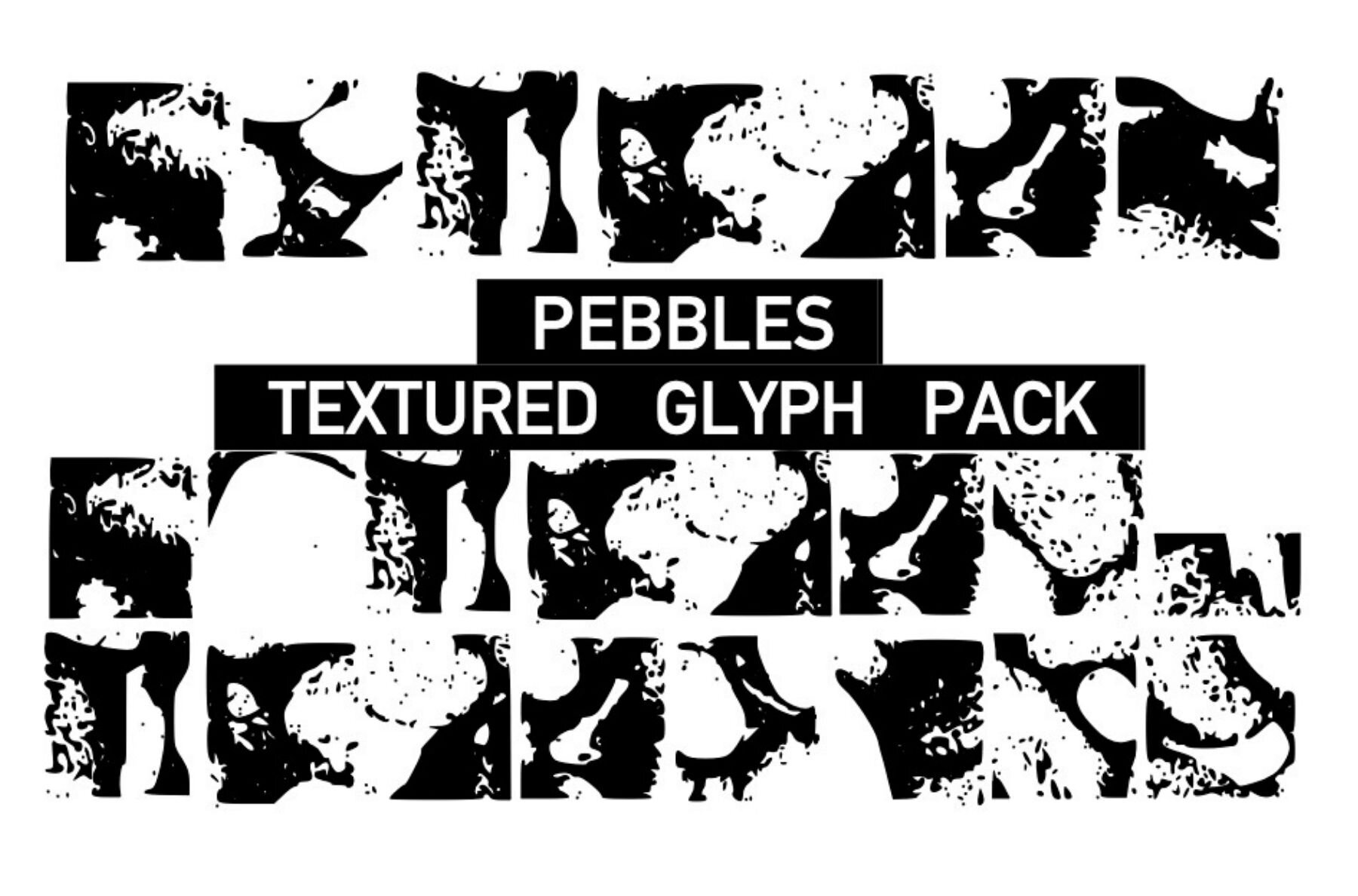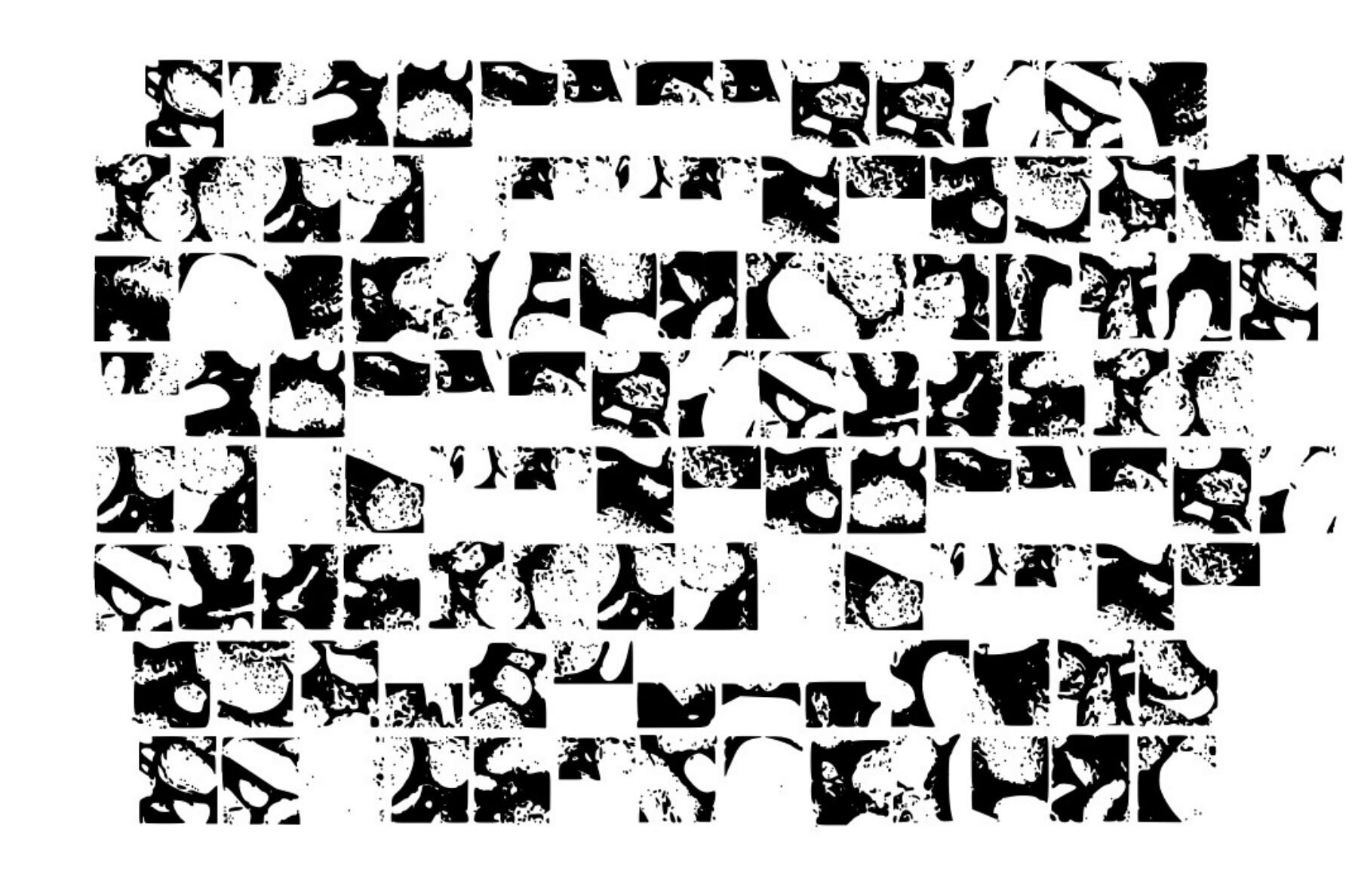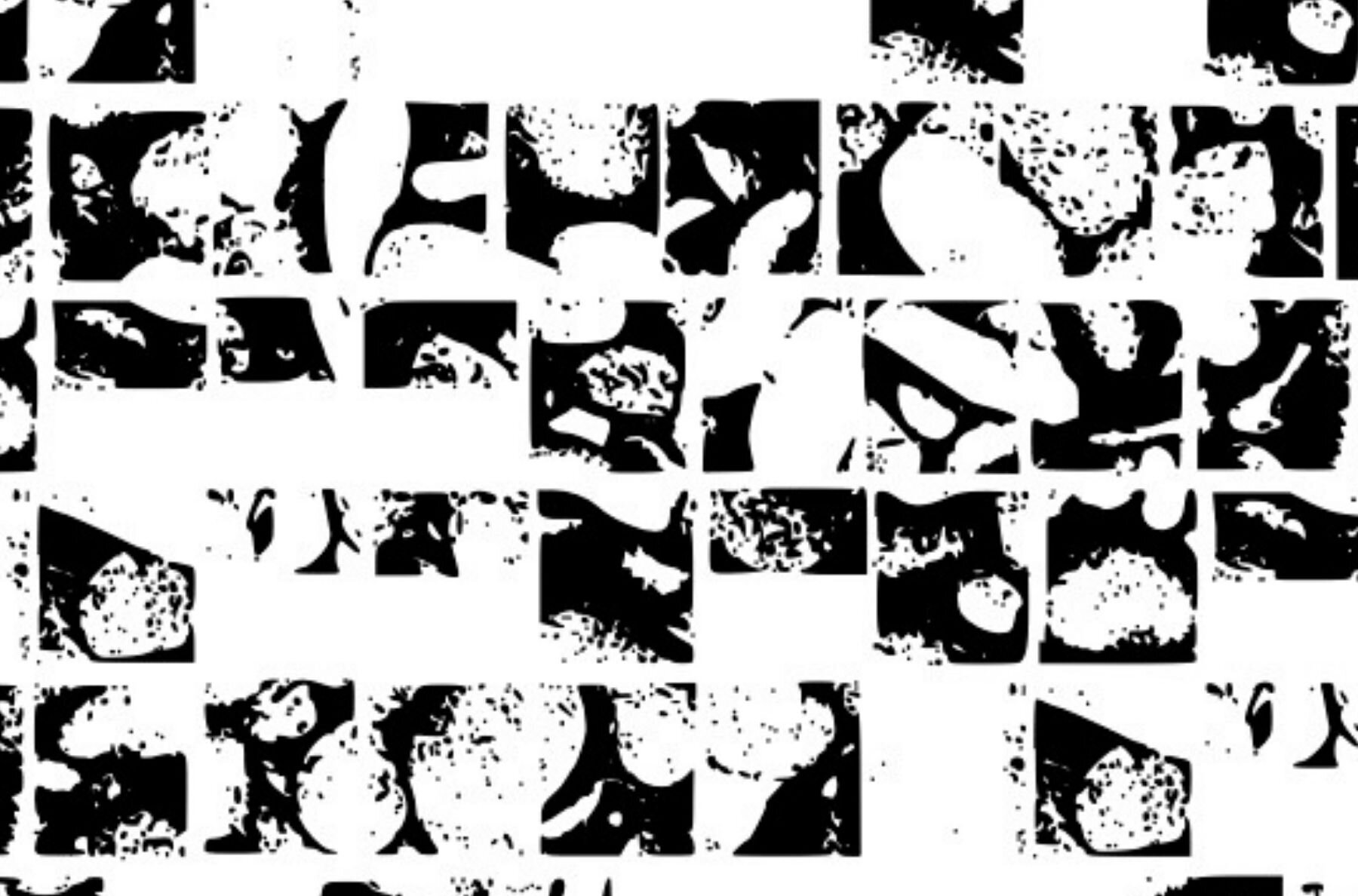
Texture Pebbles Font
Texture Pebbles
Discover the Texture Pebbles pack—a remarkable collection of small and large rocky-textured glyphs, ideal for elevating your natural design projects. Whether you're creating nature-inspired posters, web designs, or unique craft projects, these pebble stone glyphs offer endless creative possibilities.Pebble Stone Glyph Set